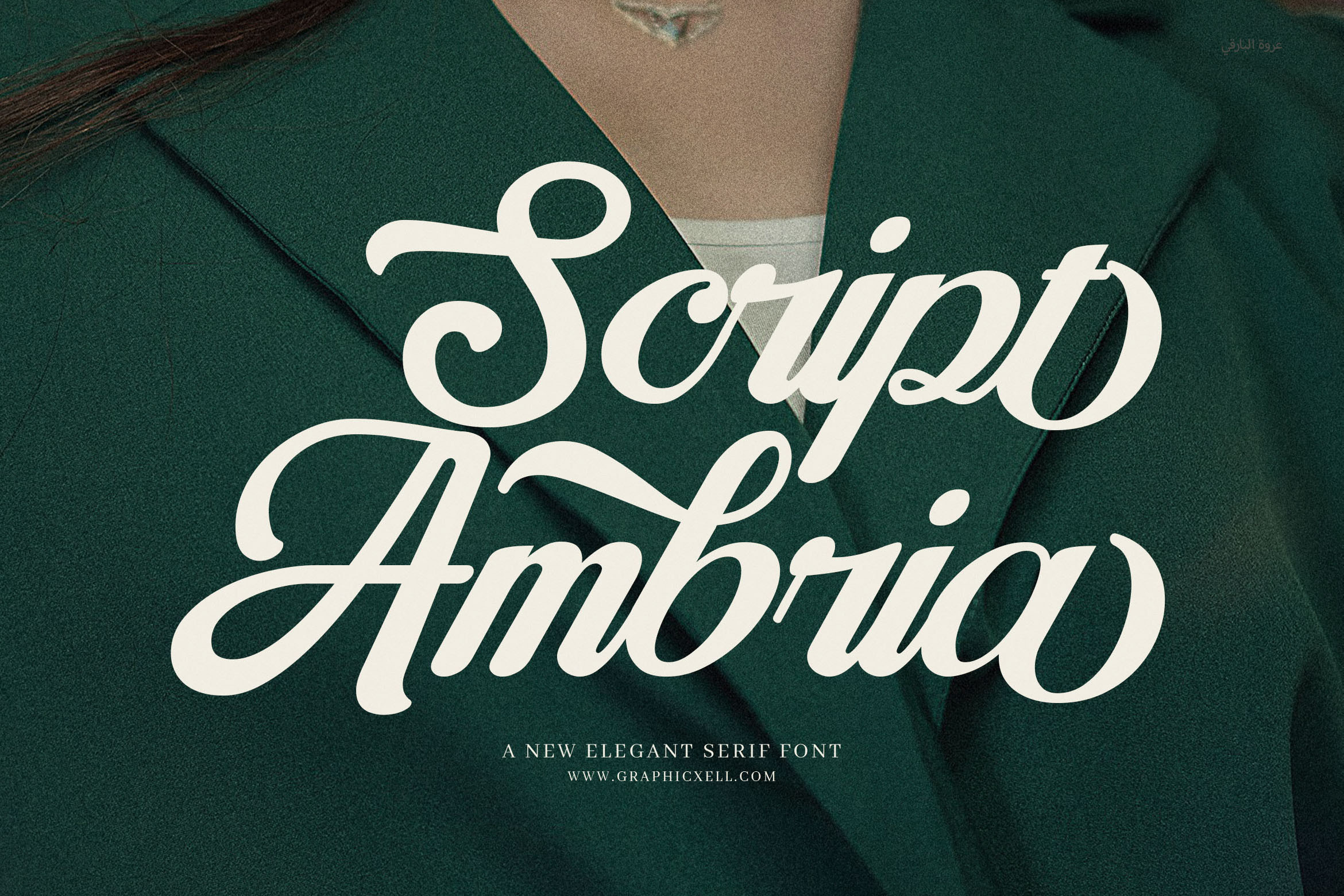
Ambriana Script Font
Introducing the Ambriana Script Font, a graceful and elegant typeface that brings a sophisticated feel to any design. This beautiful script font features stylish calligraphy strokes and a rich selection of alternate characters. Each letter is designed with care to provide flexibility and beauty in your creative projects.
Whether you're working on branding, wedding invitations, logos, music covers, or magazine layouts, Ambriana delivers timeless charm and creative flair. The smooth flow and feminine style make it a perfect fit for digital designs, prints, social media graphics, boutique advertisements, and more.
Thanks to its many alternate characters and classy curves, Ambriana allows for a wide range of design possibilities. From business cards to posters and album art, this font gives every project a soft, high-end look without losing clarity or legibility.
Elegant script font with calligraphy style
Includes many alternate letters for unique looks
Ideal for weddings, branding, logos, invitations, and more
Works well for digital, print, and promotional designs
With the Ambriana Script Font, you can elevate every design with elegance, charm, and creative style. It’s the perfect choice for professionals who want their work to look polished, romantic, and premium.